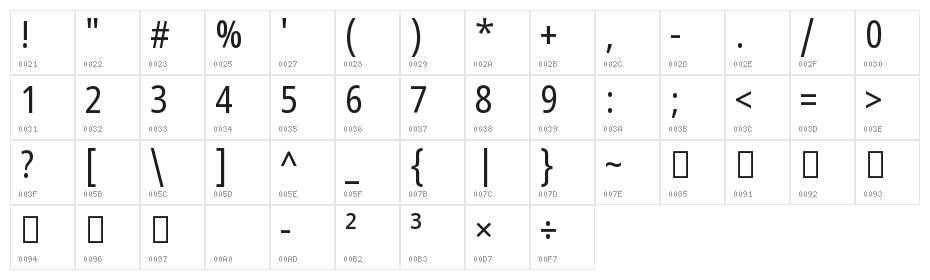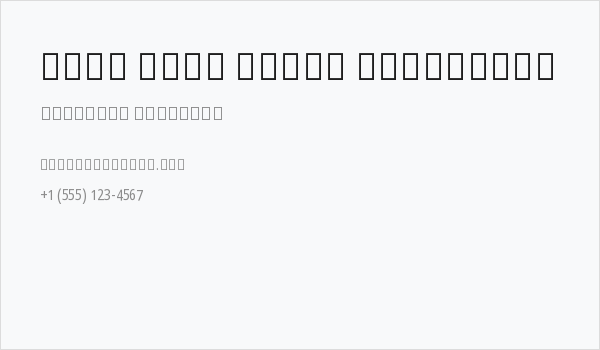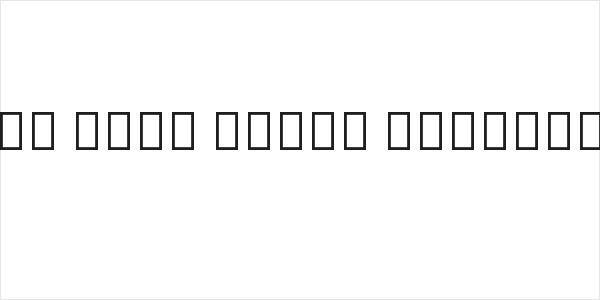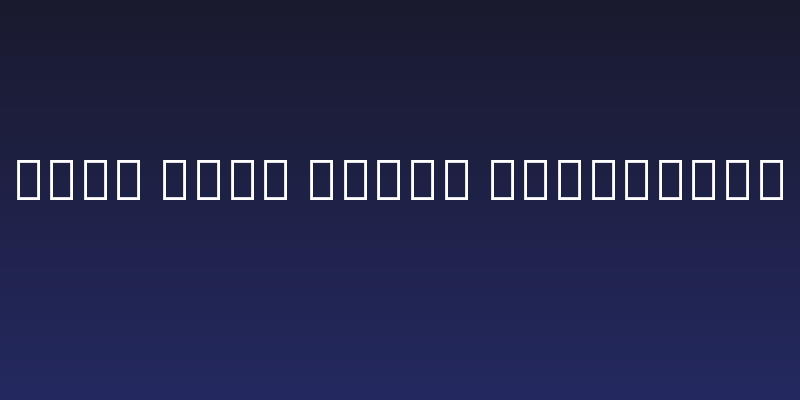
Noto Sans Tamil Condensed Font
Noto Sans Tamil Condensed Description
This font features a clean and modern sans-serif design with a condensed width, making it ideal for space-saving applications. The numerals and special characters are clear and easy to read, maintaining a consistent stroke width throughout. The design is minimalistic, focusing on functionality and readability, suitable for both digital and print media. The characters are well-proportioned, with a uniform height that enhances legibility. This font is versatile, fitting a variety of design needs while maintaining a professional appearance.
Proposed ProjectsIdeal for use in digital interfaces, print media, and branding materials where space is limited.